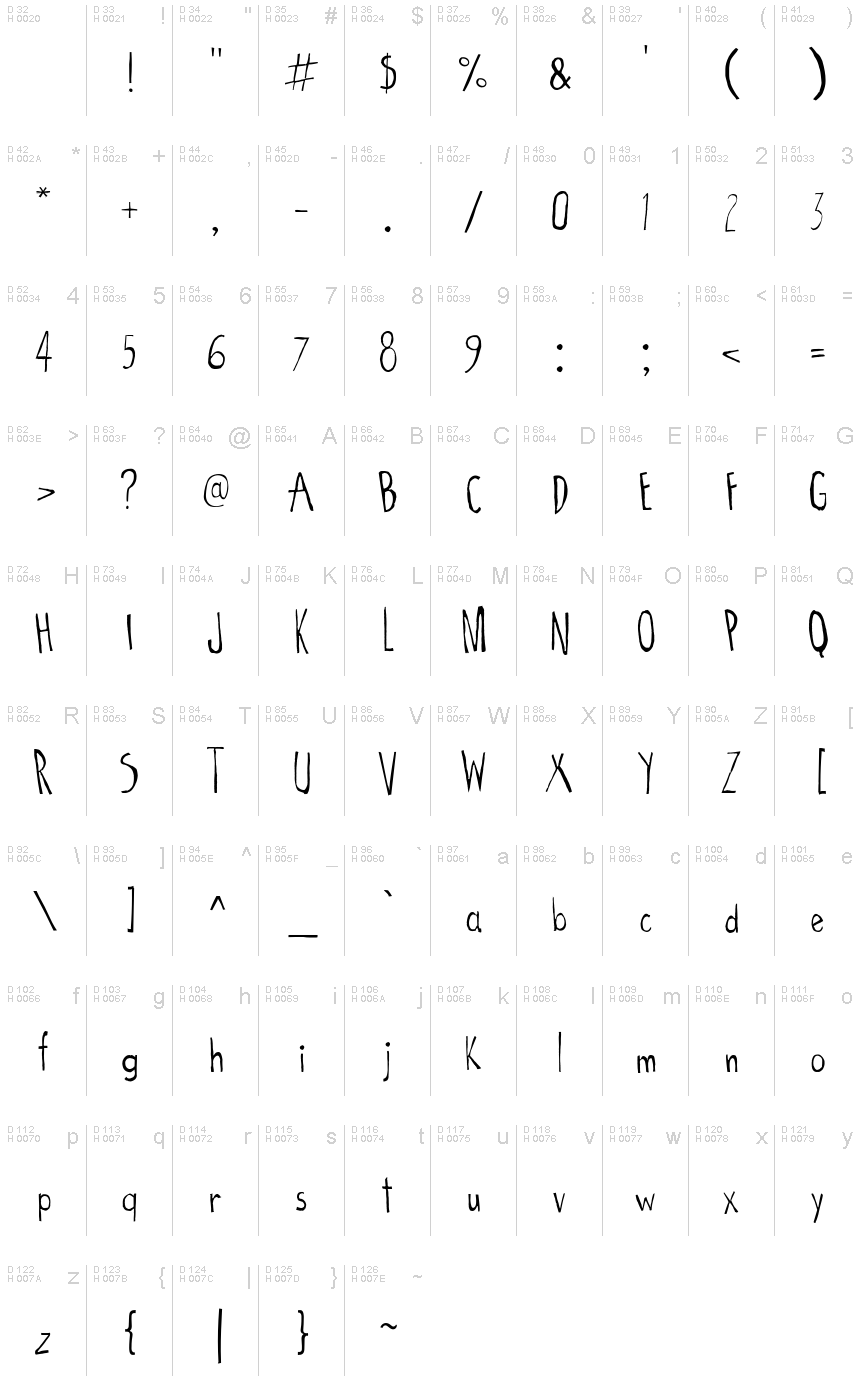
Cartoon Tunes
Cartoon Tunes, a captivating display font created by Galdino Otten Fonts, exudes a whimsical and playful spirit. With its condensed, cartoon-inspired design, this font captivates the eye with its bold, expressive strokes and quirky, hand-drawn aesthetic. The unique character shapes and fluid, organic lines evoke a sense of childlike wonder, making it a delightful choice for a variety of creative projects.
Cartoon Tunes shines in applications that demand a touch of playfulness and charm, such as children's books, animated films, logo design, and branding for products or services targeting a youthful audience. Its distinctive style lends itself well to the creation of engaging headlines, titles, and display text, where its personality can truly shine and capture the attention of the viewer.